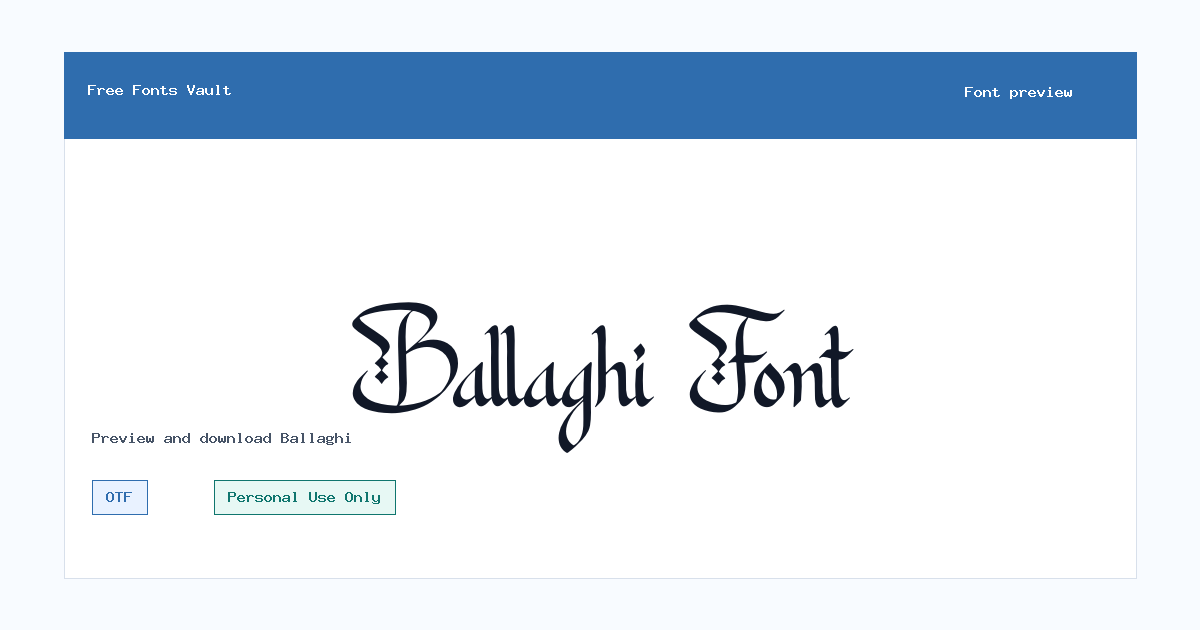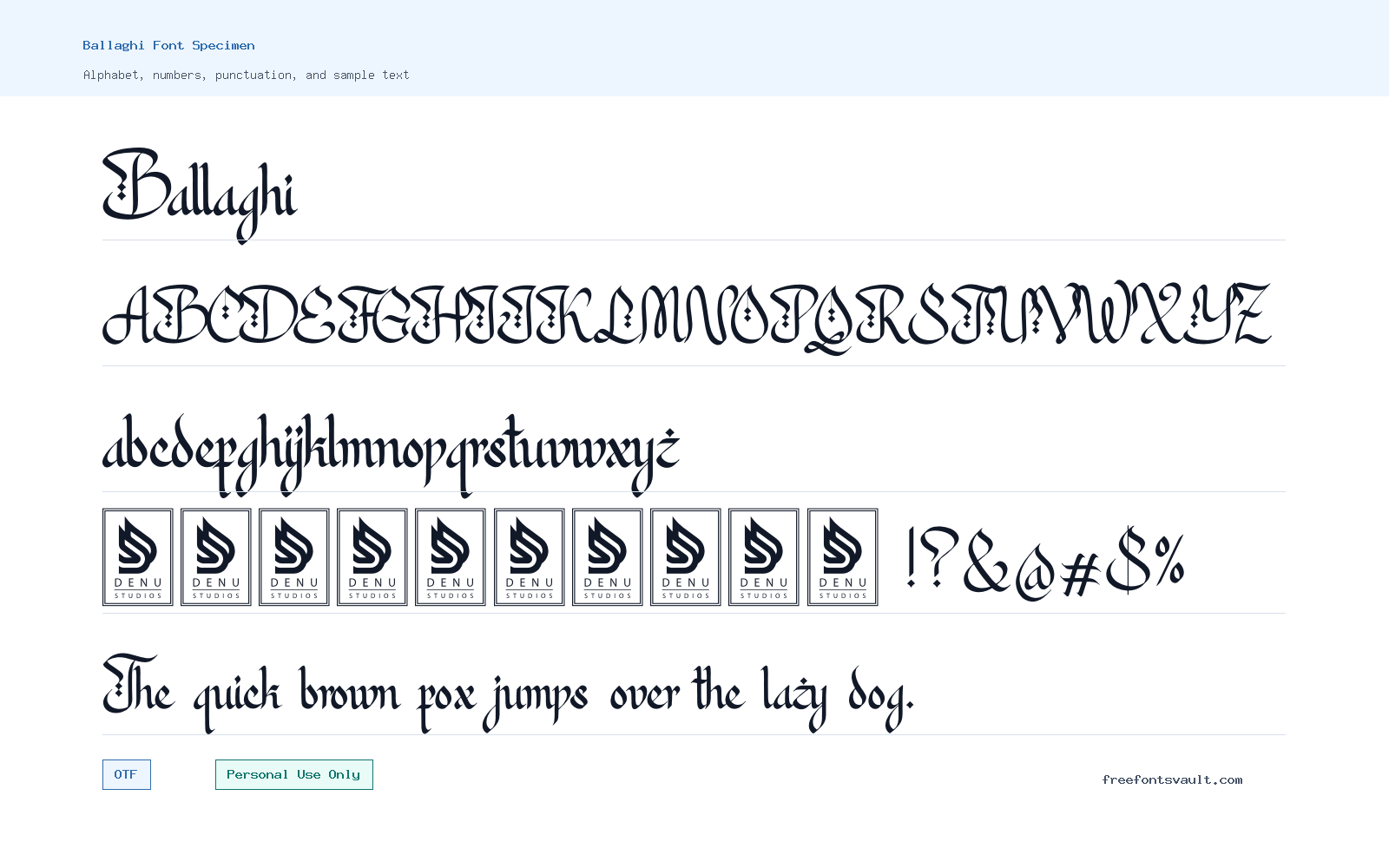
Ballaghi
- Designer Dede Nugraha
Ballaghi font.
Ballaghi is an Arabic display font with a strong decorative voice, suited to short pieces of text where style matters as much as wording. It is best treated as a personal-use or demo font unless you confirm a broader license from the designer.
Ballaghi is credited to Dede Nugraha and is connected with Denu Studios. The available font file is an OTF regular style, so it should install easily on most modern design systems and work in common apps that support OpenType fonts. Its name and license wording identify it as an Arabic font, so visitors should preview the exact words they plan to use before downloading, especially if they need clean shaping, punctuation, or mixed Arabic and Latin text.
Use Ballaghi where a display setting can carry a distinctive look: poster titles, social graphics, event artwork, quote images, thumbnails, decorative headings, and personal concept designs. It is not the safest choice for long paragraphs, small UI labels, or dense body copy because decorative Arabic fonts usually need more space to stay readable. Test it at the real size you will use, check letter spacing carefully, and compare a few background colors before final export.
- Arabic display styling intended for short, visual text rather than long reading.
- Personal poster titles, social media artwork, and decorative heading designs.
- Arabic-themed display layouts where the text is short and can be previewed carefully.
Who designed Ballaghi?
What is Ballaghi best used for?
It is best for short display text such as titles, posters, social posts, thumbnails, invitations, and personal design experiments. Preview longer text before using it, because decorative display fonts can become harder to read in small sizes.